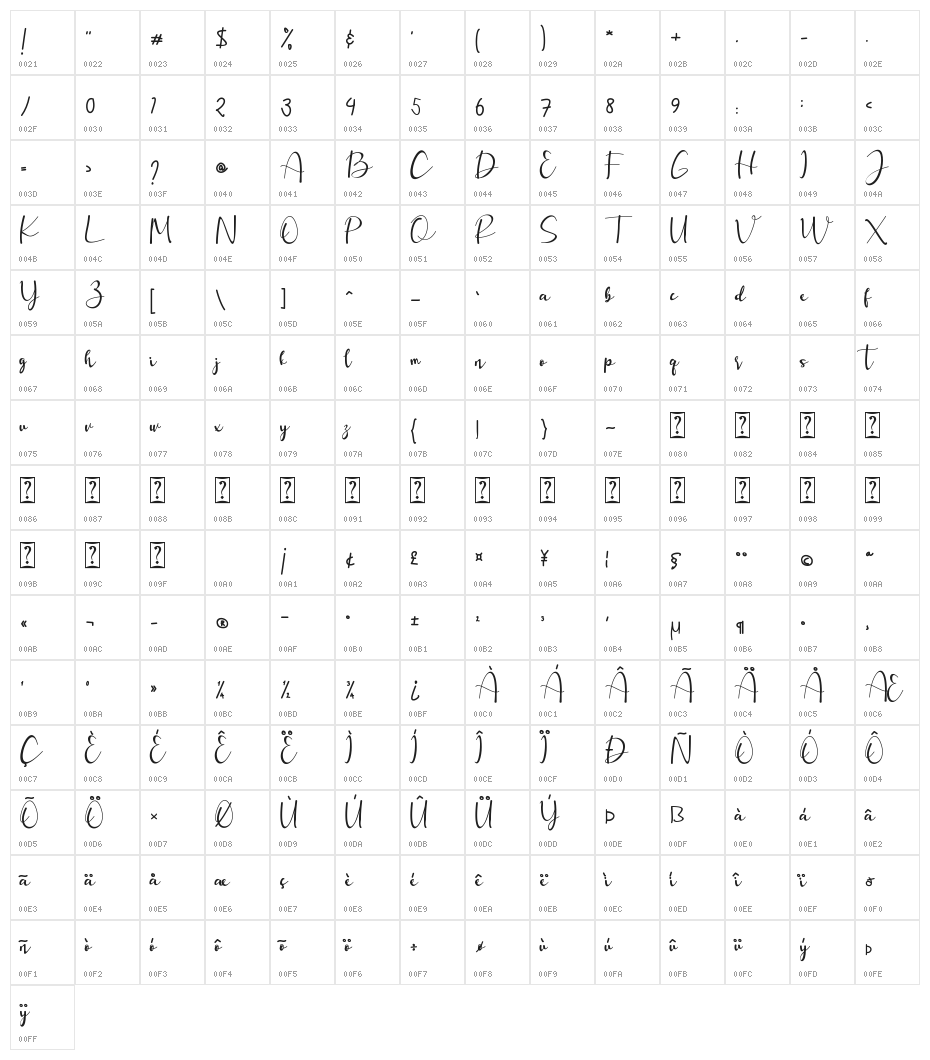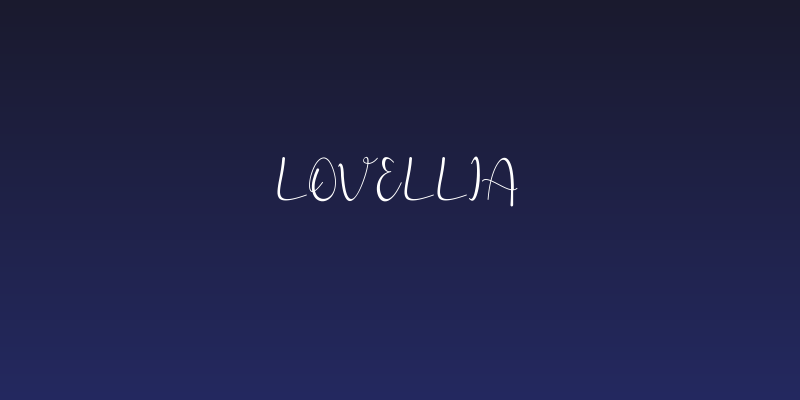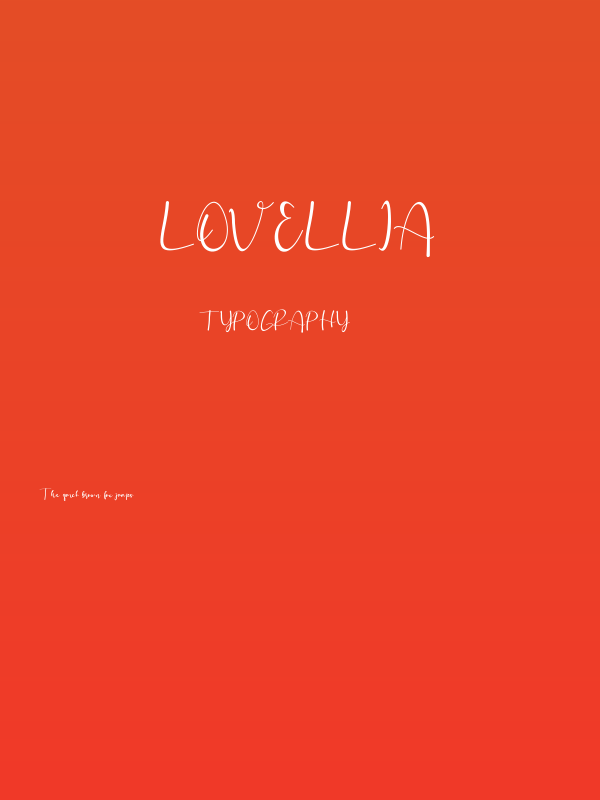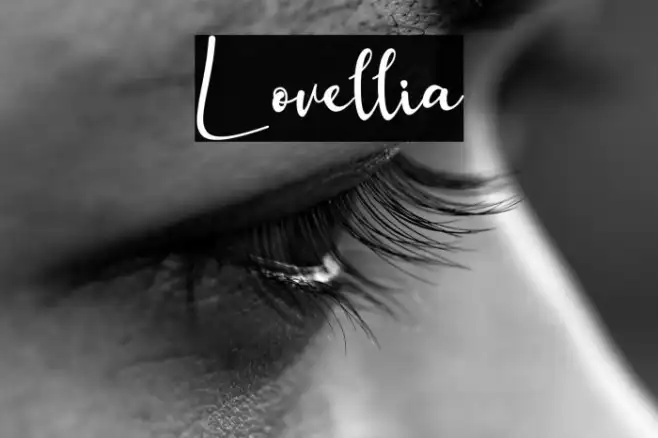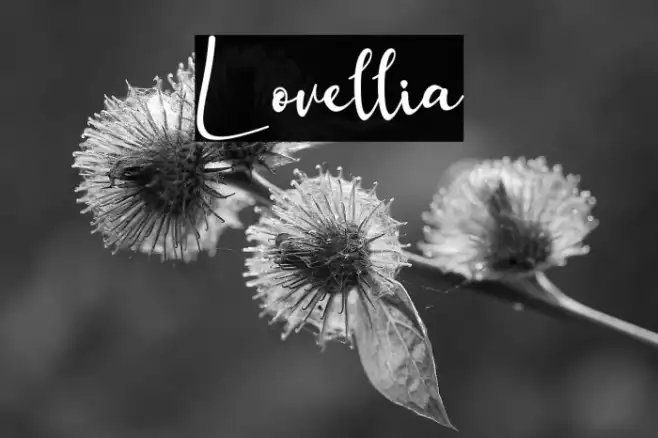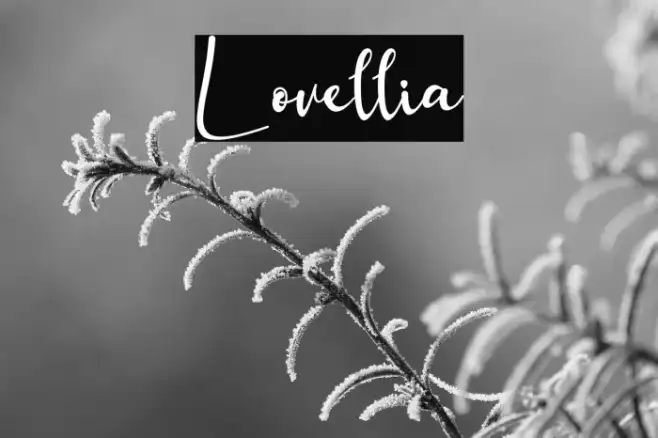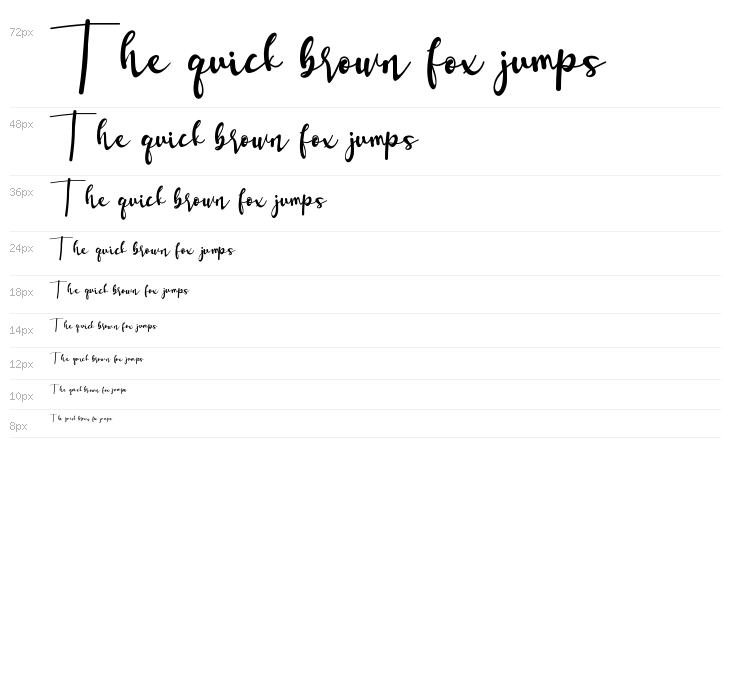
Lovellia Font
Lovellia Description
This font features a lively and flowing script style, characterized by its elegant and cursive letterforms. The uppercase letters are tall and slender, with a graceful loop and swirl that adds a touch of sophistication. The lowercase letters maintain a consistent flow, with smooth connections between characters, enhancing the handwritten feel. The numerals are distinct and maintain the same fluidity, making them easily readable. Special characters are thoughtfully designed to match the overall aesthetic, ensuring a cohesive look. This font exudes a sense of elegance and charm, perfect for adding a personal touch to any project.
| Use Case | Logos, Invitations, Personal stationery |
| Proposed Projects | Ideal for wedding invitations, greeting cards, branding, and personal stationery. |